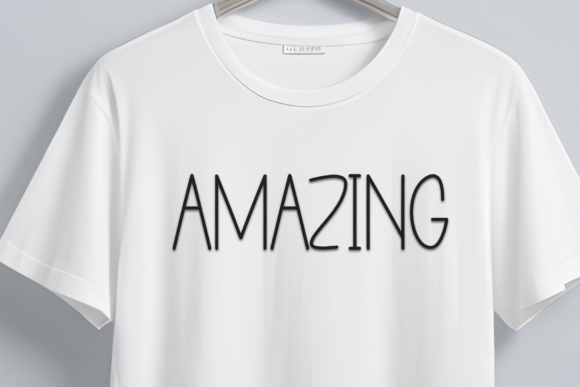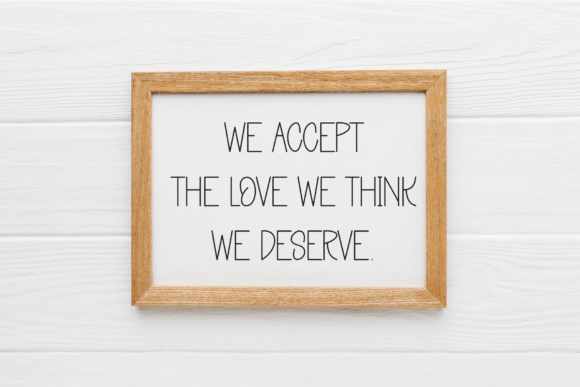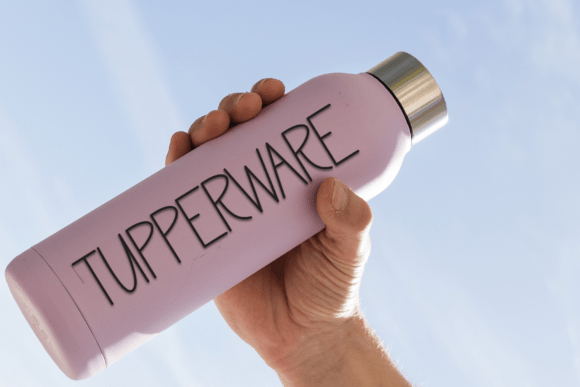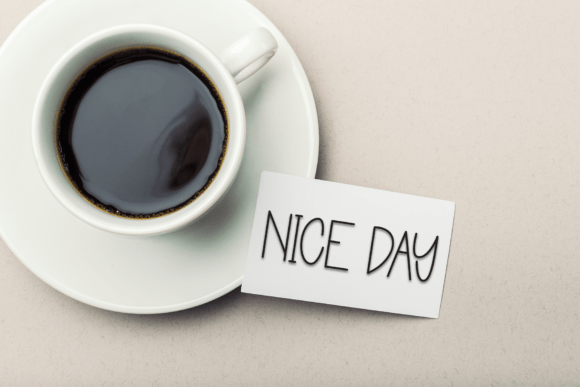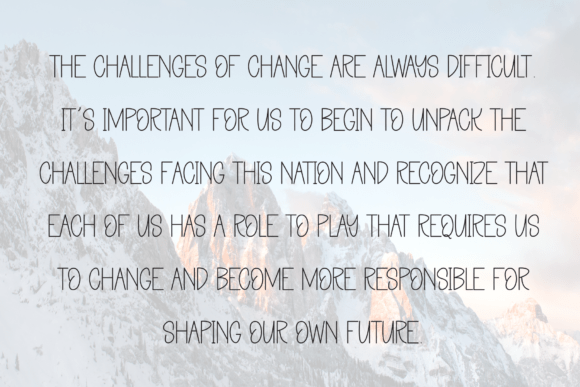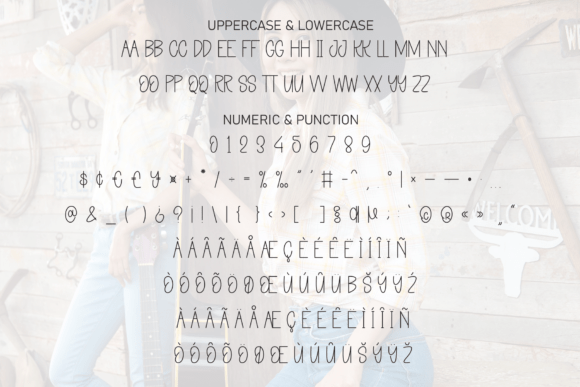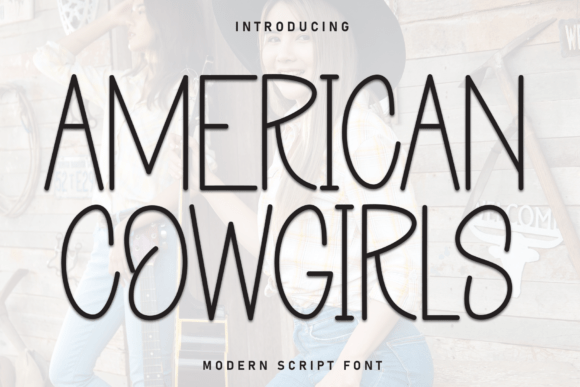
Introducing American Cowgirls Font: The Perfect Blend of Simplicity and Friendliness
In the world of typography, fonts play a crucial role in conveying the tone and personality of a brand or design. For designers and crafters looking for a font that exudes a sense of warmth, approachability, and modernity, American Cowgirls Font is an excellent choice. This casual and neat display font has been designed to combine simplicity with a friendly, inviting vibe, making it perfect for a wide range of applications.
Clean Lines, Balanced Letterforms, and Subtle Rounded Edges
American Cowgirls Font boasts clean lines, balanced letterforms, and subtle rounded edges that give it a unique and distinctive look. The font’s design is characterized by a polished finish that captures the essence of modern handwritten typography. The clean lines and balanced letterforms ensure that the font is easy to read, while the subtle rounded edges add a touch of warmth and friendliness.
Ideal for Branding, Headlines, Packaging, and Digital Content
American Cowgirls Font is an incredibly versatile font that can be used for a variety of design applications. Its crisp structure and warm, inviting style make it ideal for branding, headlines, packaging, and digital content. Whether you’re designing a logo, creating a brochure, or developing a website, this font is sure to add a touch of charm and sophistication to your design.
Key Features of American Cowgirls Font
- Clean Lines: The font features clean lines that give it a modern and polished look.
- Balanced Letterforms: The balanced letterforms ensure that the font is easy to read and understand.
- Subtle Rounded Edges: The subtle rounded edges add a touch of warmth and friendliness to the font.
- Polished Finish: The font’s polished finish captures the essence of modern handwritten typography.
- Versatile Style: The font’s versatile style makes it suitable for a wide range of design applications.
Benefits of Using American Cowgirls Font
Using American Cowgirls Font can bring numerous benefits to your design. Some of the key benefits include:
- Improved Readability: The font’s clean lines and balanced letterforms ensure that your text is easy to read and understand.
- Enhanced Visual Appeal: The font’s subtle rounded edges and polished finish add a touch of warmth and sophistication to your design.
- Increased Versatility: The font’s versatile style makes it suitable for a wide range of design applications, from branding and headlines to packaging and digital content.
- Unique Personality: The font’s unique personality and charm can help your brand stand out from the competition.
Tips for Using American Cowgirls Font
To get the most out of American Cowgirls Font, here are some tips to keep in mind:
- Use it for Headlines: The font’s bold and attention-grabbing style makes it perfect for headlines and titles.
- Pair it with Other Fonts: The font’s versatility makes it easy to pair with other fonts to create a unique and visually appealing design.
- Experiment with Colors: The font’s clean lines and subtle rounded edges make it suitable for use with a wide range of colors and design schemes.
- Use it for Branding: The font’s unique personality and charm make it perfect for use in branding and logo design.
American Cowgirls Font is a versatile and charming font that can add a touch of warmth and sophistication to any design. Its clean lines, balanced letterforms, and subtle rounded edges make it perfect for a wide range of applications, from branding and headlines to packaging and digital content. With its crisp structure and inviting style, this font is sure to deliver clarity and charm in equal measure.